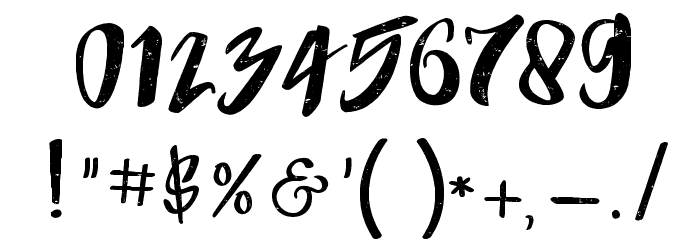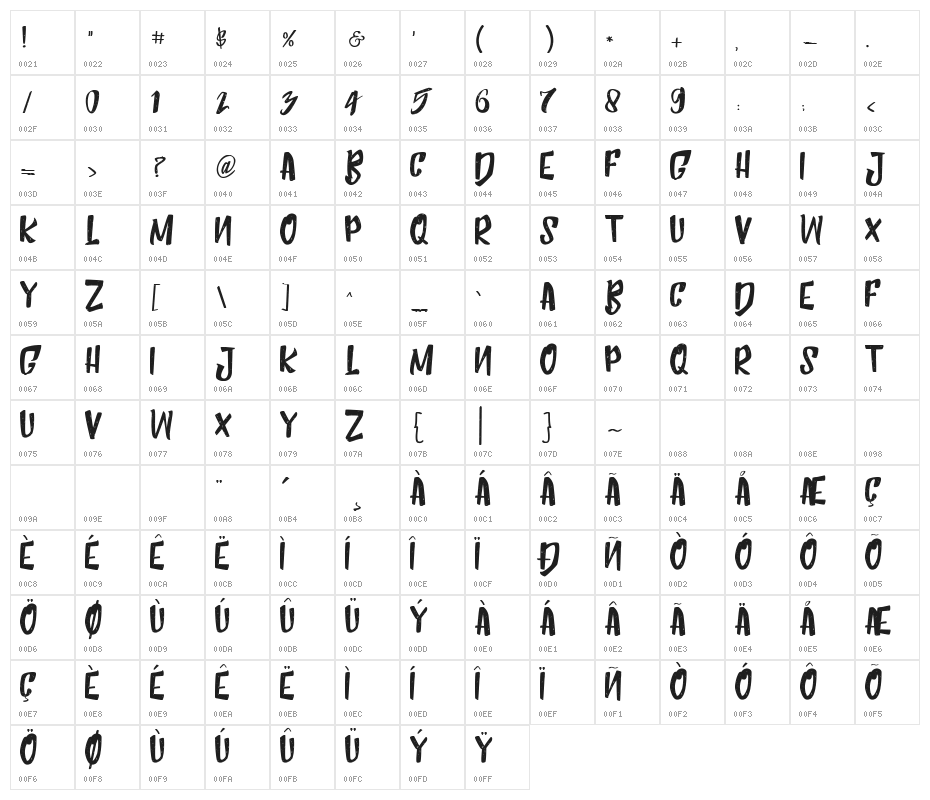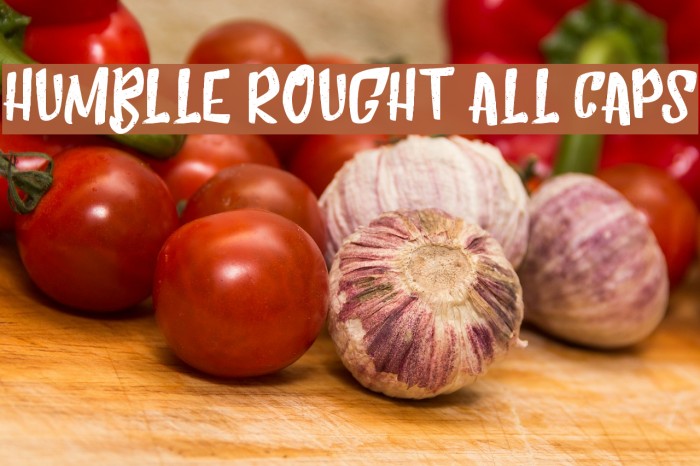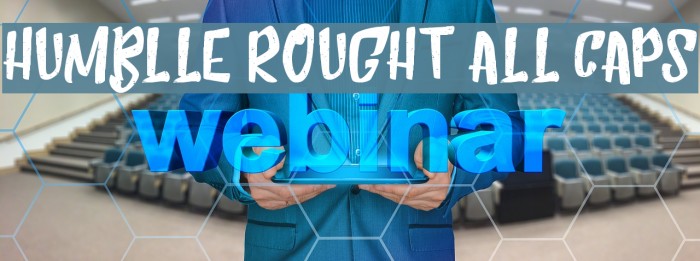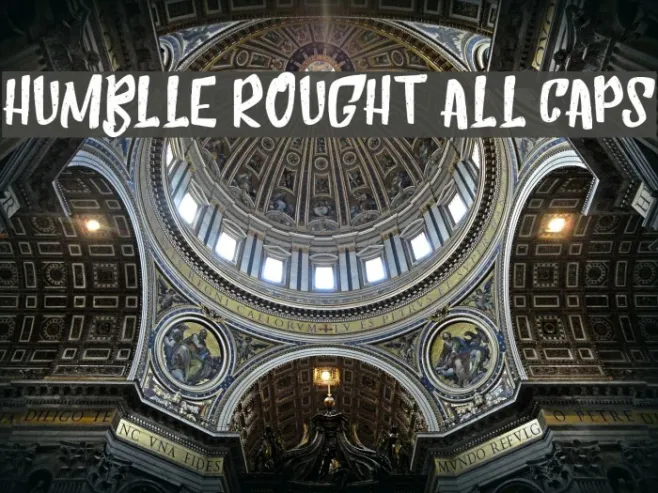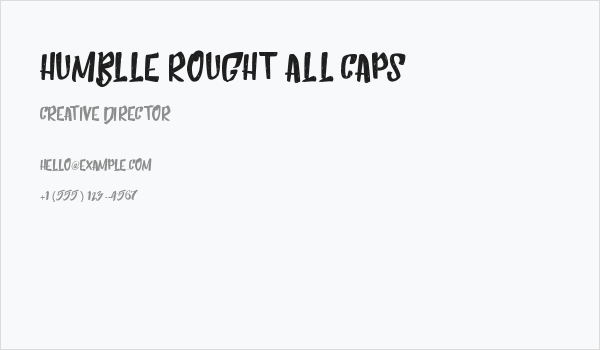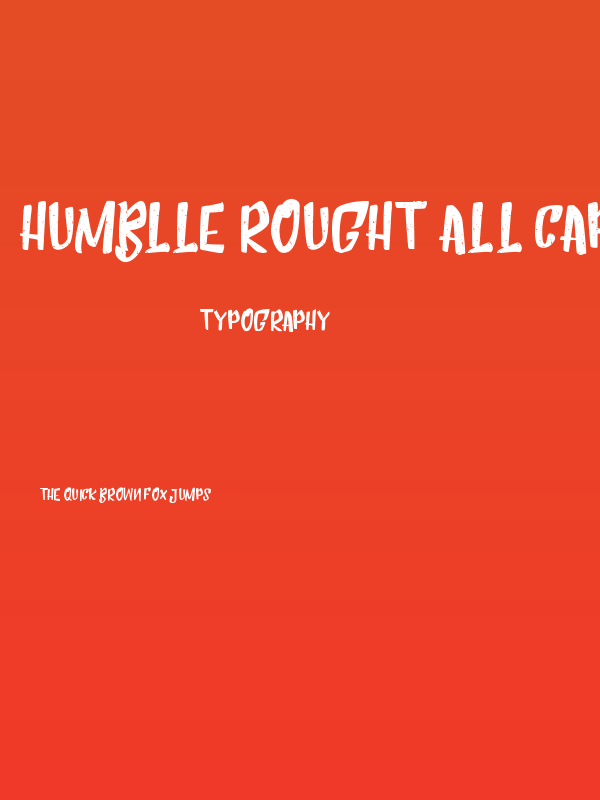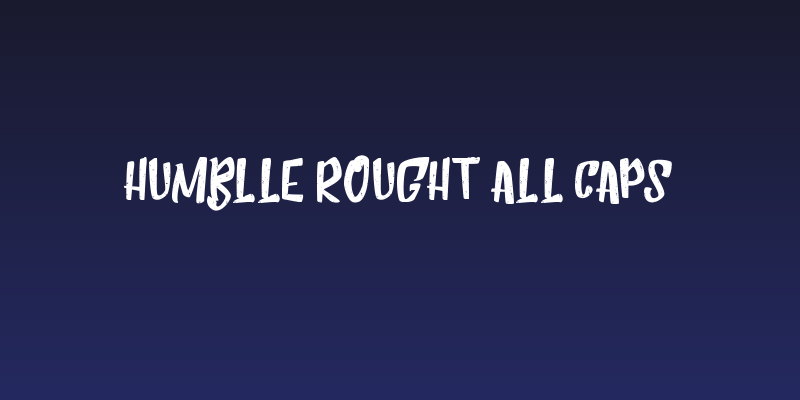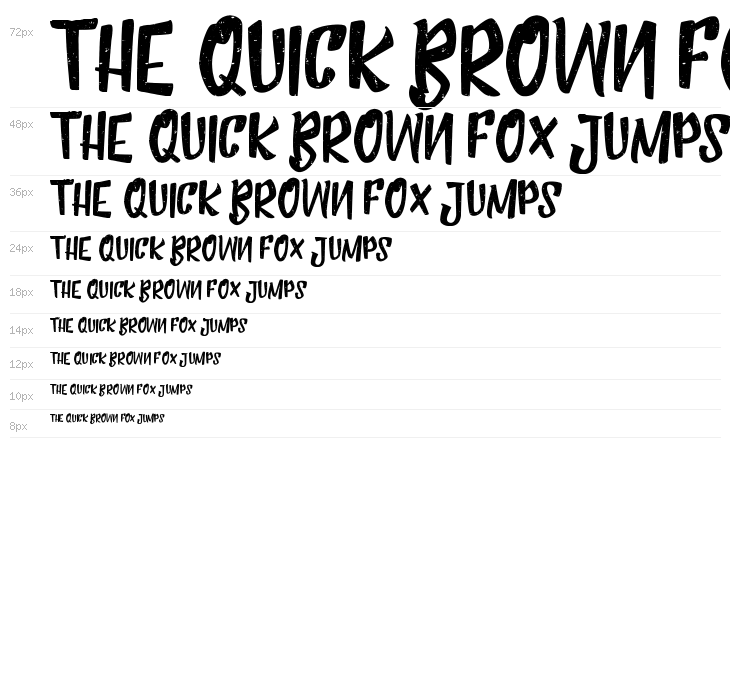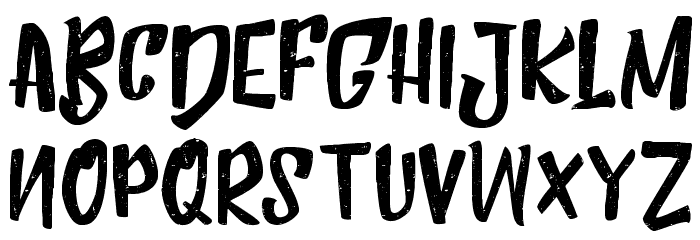
Humblle Rought All Caps Font
Humblle Rought All Caps Description
This font features a bold, hand-drawn style with a rough texture that gives it a rustic and vintage feel. The uppercase letters are prominent and slightly irregular, adding to the handcrafted appearance. The numbers and special characters maintain the same aesthetic, ensuring consistency across all glyphs. The font's distressed look is ideal for projects that require a touch of authenticity and character, such as branding for artisanal products or vintage-themed designs. Its boldness ensures readability while the unique texture adds visual interest.
| Proposed Projects | Ideal for branding, packaging, posters, and vintage-themed designs. |